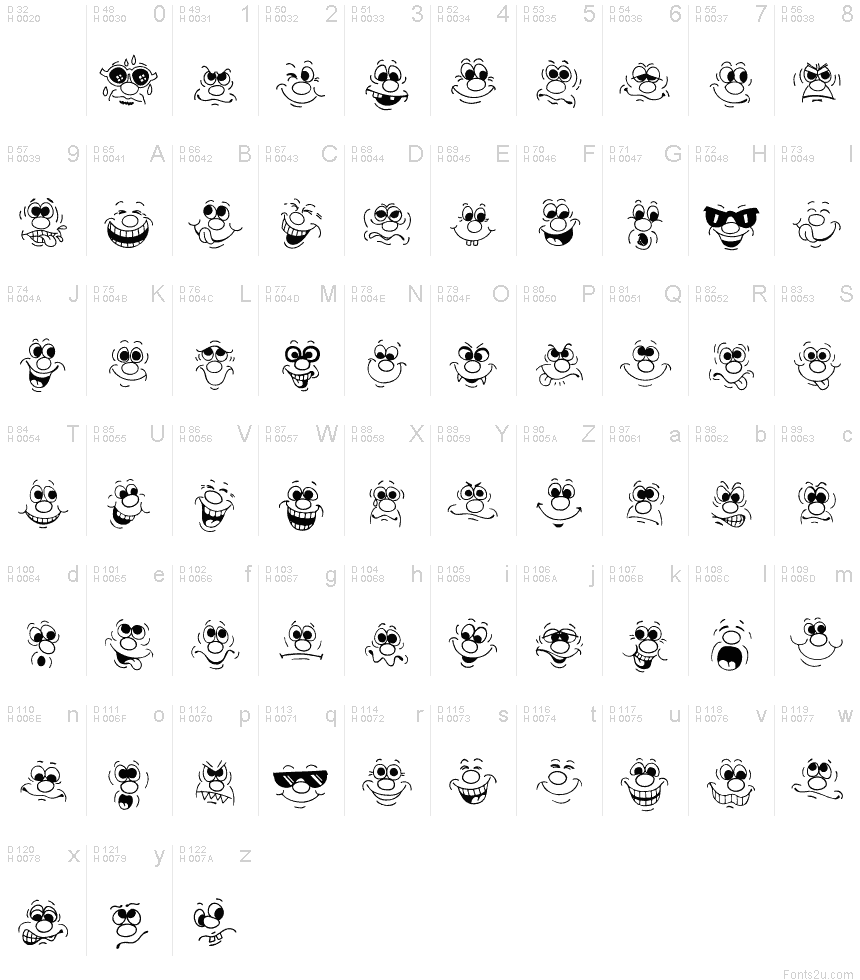
Face Off! by West Wind Fonts is a free cartoon face dingbat font built from lively hand-drawn expressions. Each symbol combines arched brows, bulbous noses, open mouths, and quick gestural outlines. The faces range from cheerful to suspicious.
Comic reactions and mischievous personalities make this set useful for children's entertainment, game graphics, and humorous publishing. It can also supply expressive mascots for party merchandise and novelty packaging, with each head functioning as a small illustration rather than ordinary lettering.